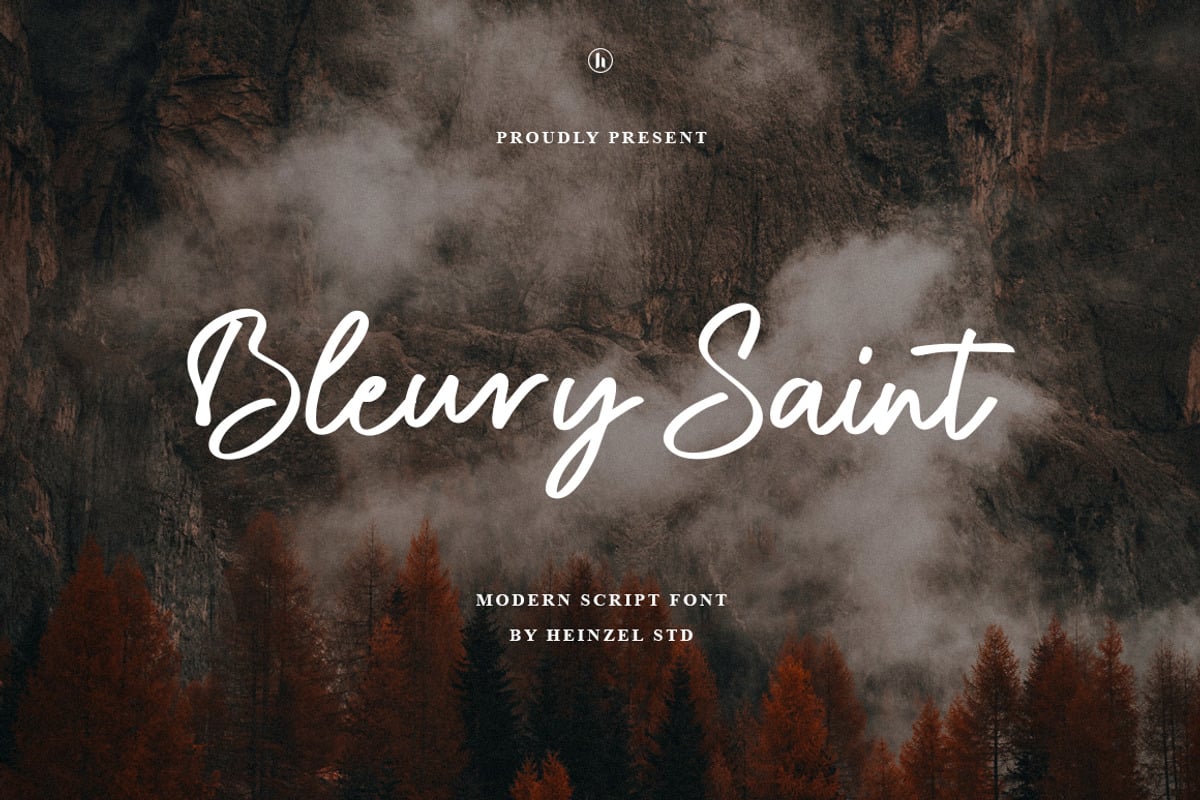
Bleury Saint Modern Script Font
Bleury Saint is the elegant script font that brings handcrafted charm and modern luxury to every design you create.
Bleury Saint blends flowing handwritten curves with a refined contemporary aesthetic. Crafted with smooth, natural brush movement, this typeface carries a romantic and sophisticated character — making it ideal for branding, wedding invitations, logos, social media graphics, packaging, fashion editorials, and premium product design.
The graceful letterforms evoke a stylish signature feel without sacrificing readability, performing beautifully across both digital and print applications. Artistic swashes and refined details give every project a personal, classy, and expressive quality — whether you're building feminine branding, modern boutique logos, beauty packaging, or elegant editorial layouts.
Bleury Saint Features:
- Uppercase and Lowercase letters
- Numerals and Punctuation
- Ligatures
- Multilingual Language Support